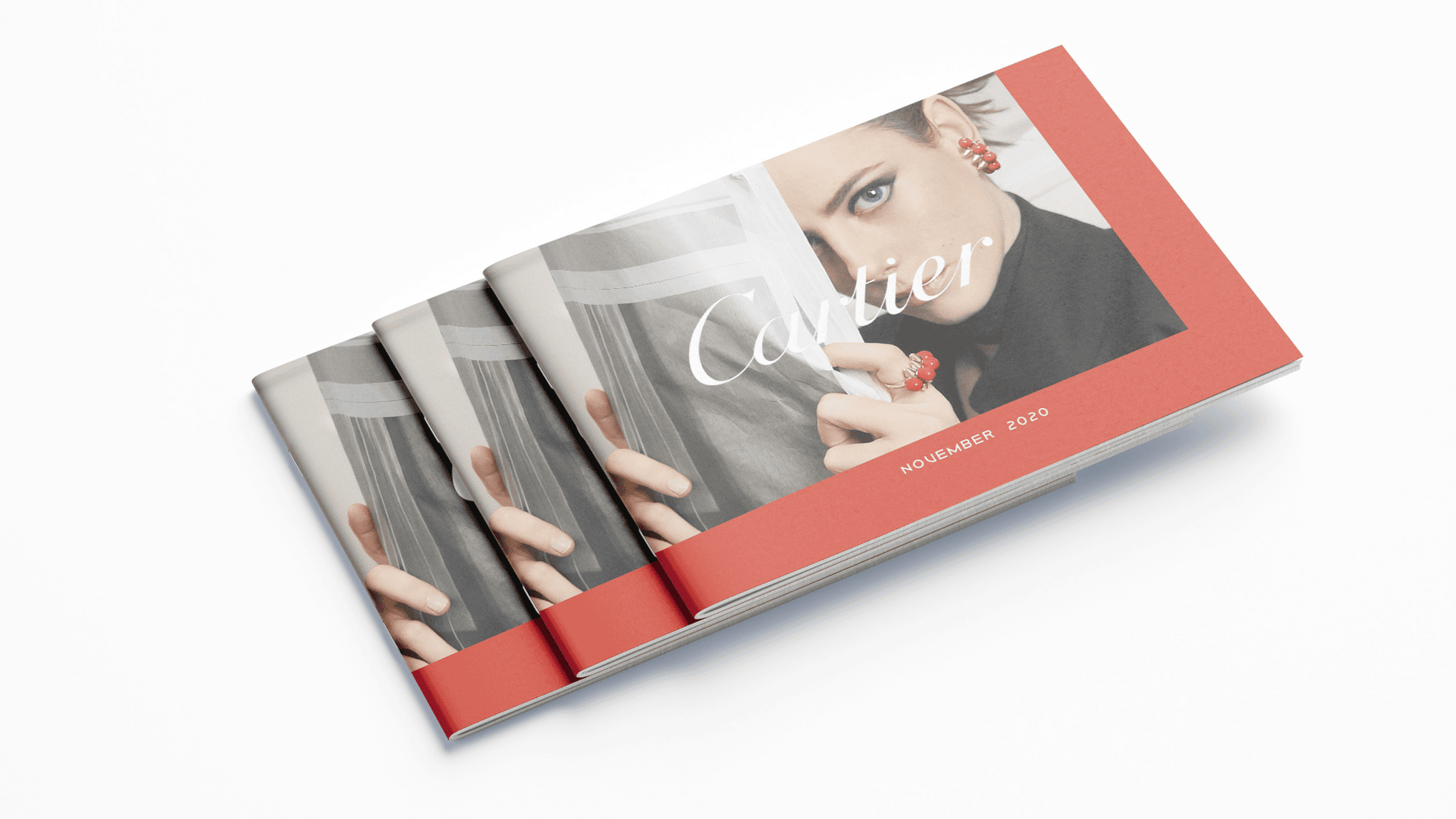
Best Font For Brochure Printing . The best typography fonts for catalogs. Serif fonts work well for titles of brochures, especially when paired with. Today, we'll give you some tips on how to choose a font for your brochure, show you some examples of fonts used in brochures, and. The best fonts for brochures attract attention, ensure readability, and visually suggest the tone of your message and brand. Whether you're creating a corporate pamphlet, an event flyer, or a creative showcase, these fonts provide the essential ingredients for a visually appealing and. Discover the best fonts for brochures to enhance readability, reflect your brand, and engage audiences with our top. The key to picking a good typography font for a digital catalog is to find something. One of the most common serif fonts used in print is times new roman. The best fonts for business brochures and flyers combine classic styling with modern features.
Discover the best fonts for brochures to enhance readability, reflect your brand, and engage audiences with our top. The key to picking a good typography font for a digital catalog is to find something. Serif fonts work well for titles of brochures, especially when paired with. The best fonts for brochures attract attention, ensure readability, and visually suggest the tone of your message and brand. Today, we'll give you some tips on how to choose a font for your brochure, show you some examples of fonts used in brochures, and. Whether you're creating a corporate pamphlet, an event flyer, or a creative showcase, these fonts provide the essential ingredients for a visually appealing and. The best typography fonts for catalogs. The best fonts for business brochures and flyers combine classic styling with modern features. One of the most common serif fonts used in print is times new roman.
Best Font For Brochure Printing The best fonts for business brochures and flyers combine classic styling with modern features. Whether you're creating a corporate pamphlet, an event flyer, or a creative showcase, these fonts provide the essential ingredients for a visually appealing and. Today, we'll give you some tips on how to choose a font for your brochure, show you some examples of fonts used in brochures, and. Serif fonts work well for titles of brochures, especially when paired with. The best fonts for brochures attract attention, ensure readability, and visually suggest the tone of your message and brand. The best typography fonts for catalogs. The best fonts for business brochures and flyers combine classic styling with modern features. One of the most common serif fonts used in print is times new roman. The key to picking a good typography font for a digital catalog is to find something. Discover the best fonts for brochures to enhance readability, reflect your brand, and engage audiences with our top.
The Best Fonts for Brochures (with Examples) Envato Tuts+ Best Font For Brochure Printing The best fonts for business brochures and flyers combine classic styling with modern features. The key to picking a good typography font for a digital catalog is to find something. The best fonts for brochures attract attention, ensure readability, and visually suggest the tone of your message and brand. The best typography fonts for catalogs. One of the most common. Best Font For Brochure Printing.
20 Most Used Fonts for Brochure Design Best Font For Brochure Printing Today, we'll give you some tips on how to choose a font for your brochure, show you some examples of fonts used in brochures, and. One of the most common serif fonts used in print is times new roman. The best fonts for business brochures and flyers combine classic styling with modern features. Serif fonts work well for titles of. Best Font For Brochure Printing.
The Ultimate Guide to Choosing the Best Fonts for Brochure Printing Best Font For Brochure Printing Serif fonts work well for titles of brochures, especially when paired with. The best fonts for business brochures and flyers combine classic styling with modern features. Whether you're creating a corporate pamphlet, an event flyer, or a creative showcase, these fonts provide the essential ingredients for a visually appealing and. The best fonts for brochures attract attention, ensure readability, and. Best Font For Brochure Printing.
Printing Company Tri Fold Brochure Template Best Font For Brochure Printing The key to picking a good typography font for a digital catalog is to find something. Today, we'll give you some tips on how to choose a font for your brochure, show you some examples of fonts used in brochures, and. Serif fonts work well for titles of brochures, especially when paired with. The best fonts for business brochures and. Best Font For Brochure Printing.
Brochure Beauty 19 Best Fonts for Brochures Best Font For Brochure Printing Discover the best fonts for brochures to enhance readability, reflect your brand, and engage audiences with our top. Serif fonts work well for titles of brochures, especially when paired with. The best fonts for business brochures and flyers combine classic styling with modern features. Today, we'll give you some tips on how to choose a font for your brochure, show. Best Font For Brochure Printing.
The Best Fonts for Brochures (with Examples) Envato Tuts+ Best Font For Brochure Printing Whether you're creating a corporate pamphlet, an event flyer, or a creative showcase, these fonts provide the essential ingredients for a visually appealing and. Serif fonts work well for titles of brochures, especially when paired with. The best fonts for business brochures and flyers combine classic styling with modern features. The key to picking a good typography font for a. Best Font For Brochure Printing.
10+ Best Fonts for Brochures in 2021 Free and Premium Fonts Best Font For Brochure Printing One of the most common serif fonts used in print is times new roman. Serif fonts work well for titles of brochures, especially when paired with. Discover the best fonts for brochures to enhance readability, reflect your brand, and engage audiences with our top. The best typography fonts for catalogs. Whether you're creating a corporate pamphlet, an event flyer, or. Best Font For Brochure Printing.
Best Fonts for Business Brochures and Flyers That Stand Out Creative Best Font For Brochure Printing One of the most common serif fonts used in print is times new roman. Discover the best fonts for brochures to enhance readability, reflect your brand, and engage audiences with our top. The best fonts for business brochures and flyers combine classic styling with modern features. The best typography fonts for catalogs. Today, we'll give you some tips on how. Best Font For Brochure Printing.